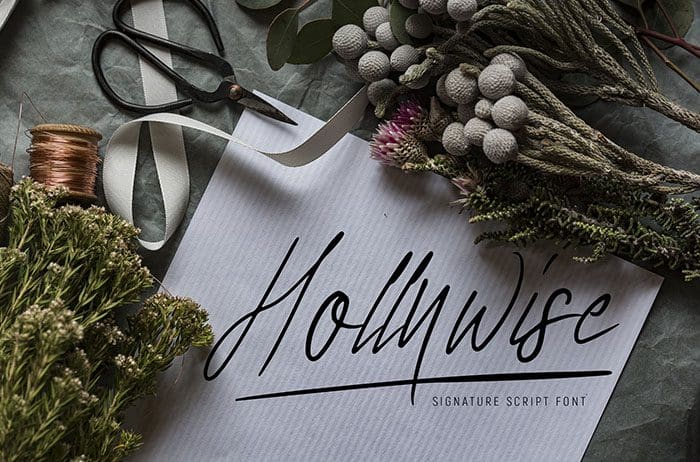
Hollywise Signature Script Font
Hollywish signature script font can be used for any variety of purposes, such as:Signature, Photography, Wedding Ceremony, Invitation, Packaging, Logo Type, Branding Design and Fashion. This font is available only for personal use. Created this font by StringLabs. You can also search more free Fonts. Thanks!